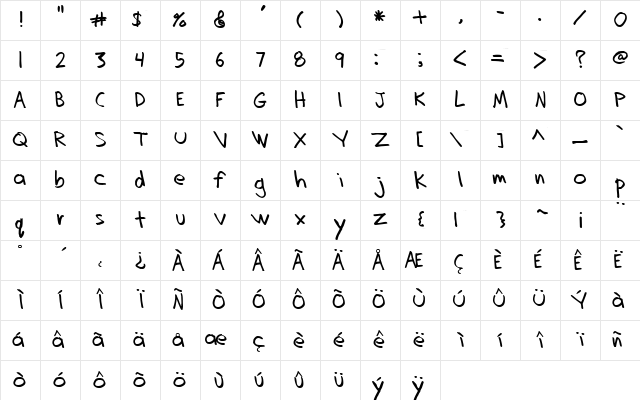
Dadhand Regular Free Font
Dadhand Regular
Dadhand Family
Design Context for Dadhand
Dadhand flows with the natural rhythm of handwritten lettering, making it ideal for designs that call for warmth and personal expression.
Font Pairing: Combine Dadhand with a simple geometric sans for maximum contrast - the tension between flowing curves and clean structure is a classic typographic pairing.
Pro Tip: Use Dadhand for short runs of text - names, titles, or taglines. Extended body copy in script faces tires the eye quickly.